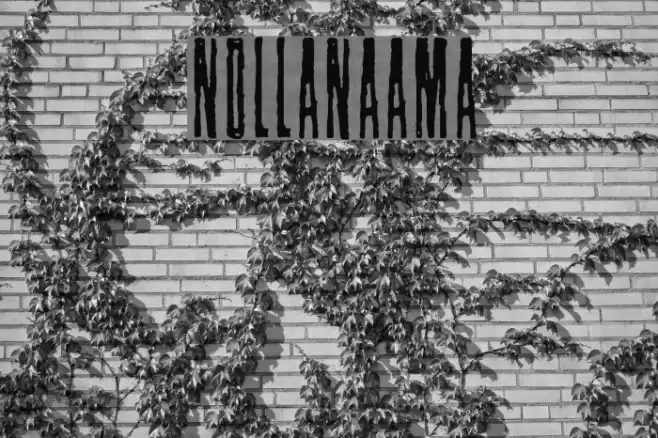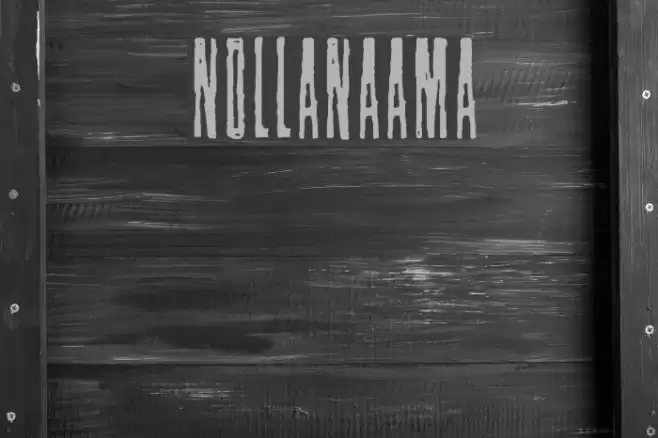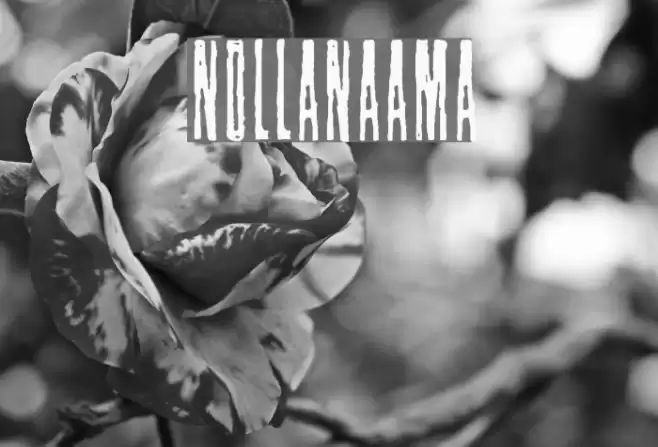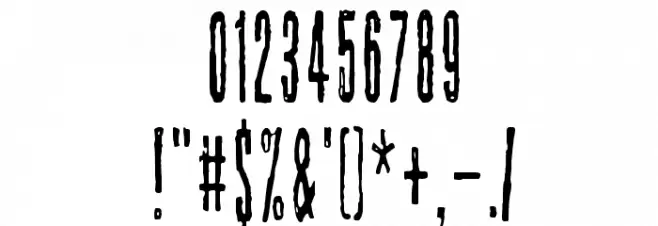
Nollanaama Font
Nollanaama Description
This font exhibits a rugged, distressed style with a bold and impactful presence. The characters are tall and narrow, featuring uneven edges and a textured appearance that suggests a worn or vintage look. The uppercase and lowercase letters maintain a consistent height, contributing to a uniform yet dynamic visual effect. Numbers and special characters follow the same design principles, ensuring a cohesive aesthetic across all glyphs. This font's unique style is reminiscent of old printing techniques, making it ideal for projects that require a touch of nostalgia or a gritty, industrial feel.
A rugged, distressed font with tall, narrow characters and a vintage, textured appearance from Uncategorized fonts.
- Proposed Projects: Ideal for vintage posters, industrial-themed designs, album covers, and branding that requires a bold, gritty aesthetic.
- Character Spacing: Tight
- Overall Style: Vintage